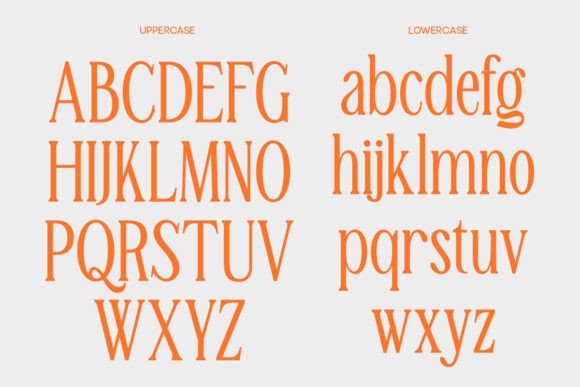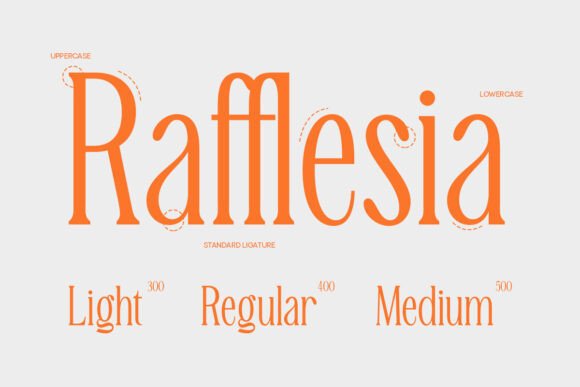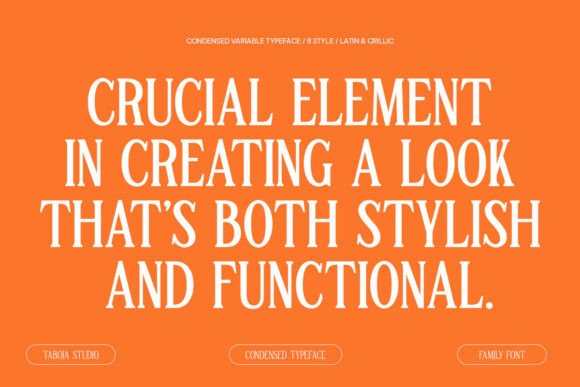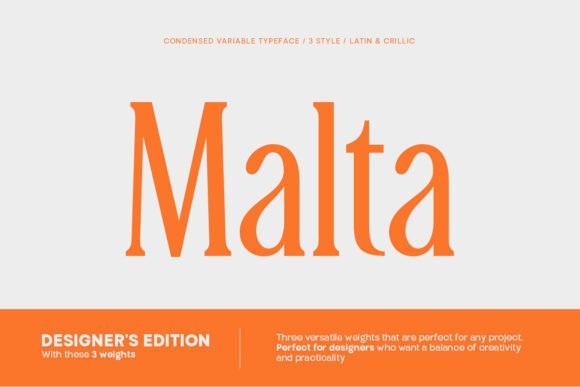
Introduction to Malta Font
Malta Designerโ€™s Edition โ€“ 3 Versatile Weights for Limitless Creativity I chose Malta Designerโ€™s Edition to give you exactly what you need: three versatile weights that are perfect for any project.
๐Ÿ‘ค Author Taboja Studio
Whether youโ€™re working on a sleek logo, a bold poster, or digital content, these fonts give you all the flexibility without overwhelming choices Itโ€™s designed to make your creative process smoother, more efficient, and still packed with style.
• โœ… High quality design for professional projects
Why Choose Malta Font?
Malta Font offers exceptional quality and versatility, making it a valuable addition to your design toolkit. Whether you’re creating for personal projects or commercial use, Malta Font delivers professional results.